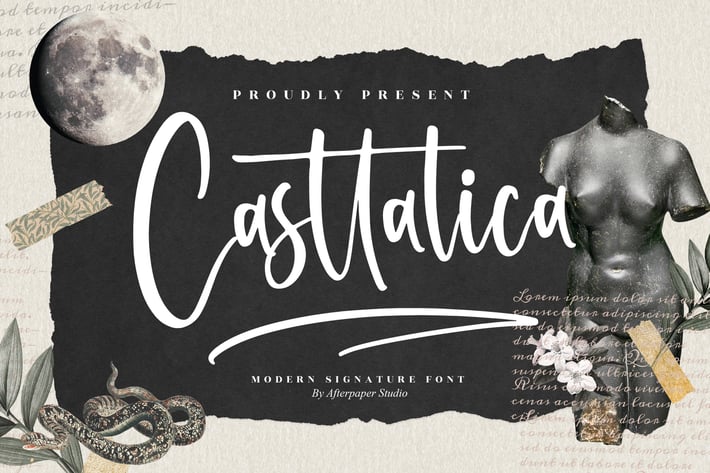
Casttalica Modern Signature Font
Casttalica is a bold and expressive modern signature font crafted to bring a dramatic handwritten touch to your creative projects. With its sweeping strokes, confident curves, and stylish handcrafted feel, Casttalica is designed to elevate branding, editorial layouts, and personal design work with a strong artistic identity. Perfect for both digital and print use, this font adds a signature-level presence to any visual concept.
Modern signature style with bold handwritten flow
Strong character shapes for impactful headlines
Smooth curves with natural hand-drawn texture
Ideal for branding, posters, and expressive typography
Signature-style logos
Personal branding & photography watermarks
Editorial layouts & magazine titles
Social media quotes & aesthetic posts
Invitations & stylish stationery
Packaging and lifestyle branding
Bold handwritten energy with unforgettable character.